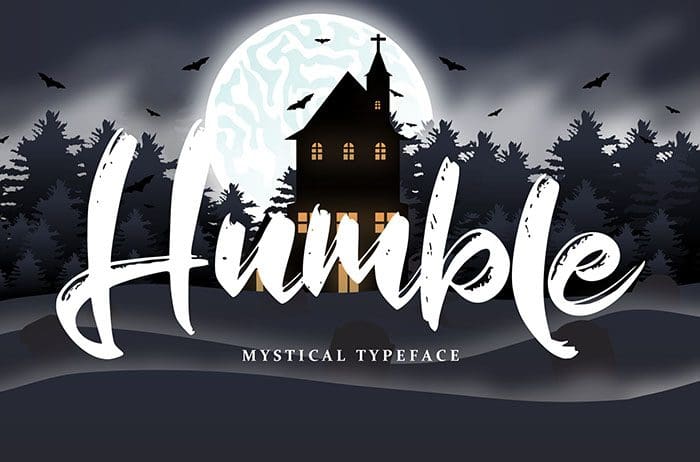
Humble Display Font
Humble is a fascinating display font featuring unique characters. This font will suitable for any project, like posters, decoration, Headline, logos, etc. Thanks to Vunira for sharing this font. Take a look at this portfolio for more of his stunning fonts.